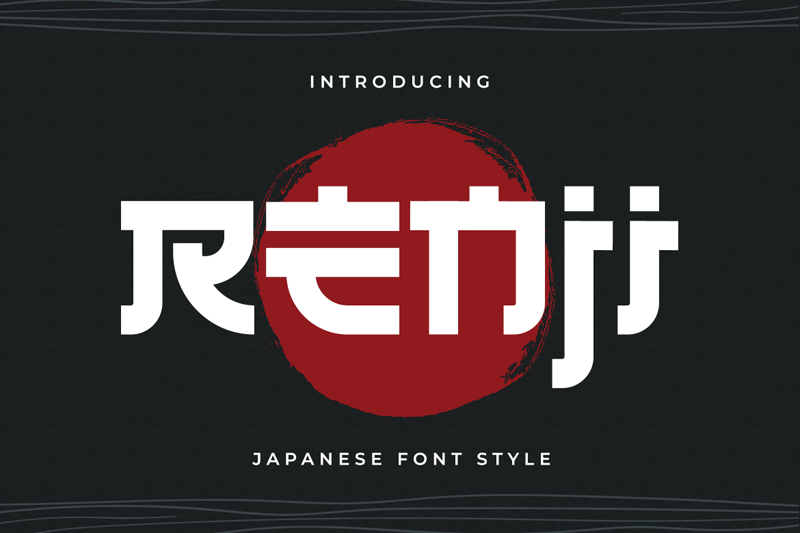
Font name: | Renji |
Author: | Type Factory |
Renji is an simple Japanese inspired display font. It has a great readability and will add a striking touch to any design! It will look awesome on any T-shirt, print, or restaurant brand! Full Version Download Here : https://typefactory.co/product/renji-japanese-font-style/ https://www.creativefabrica.com/product/renji/ref/501262/ |